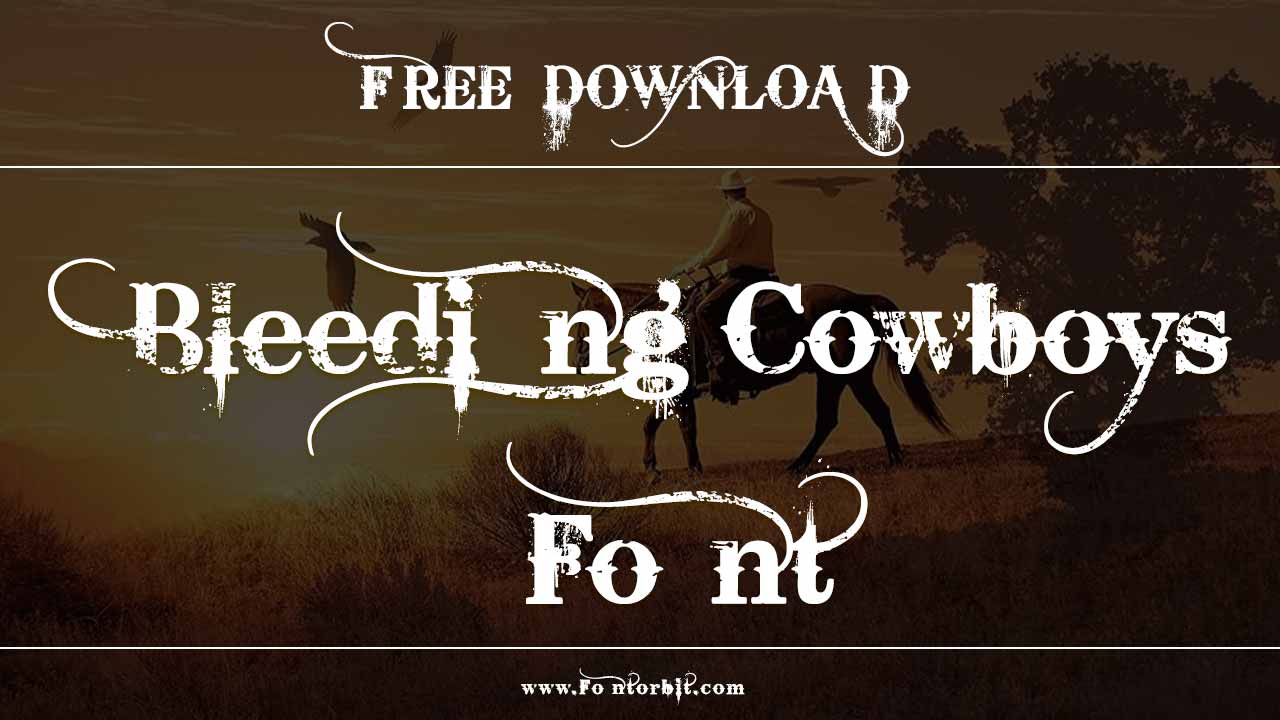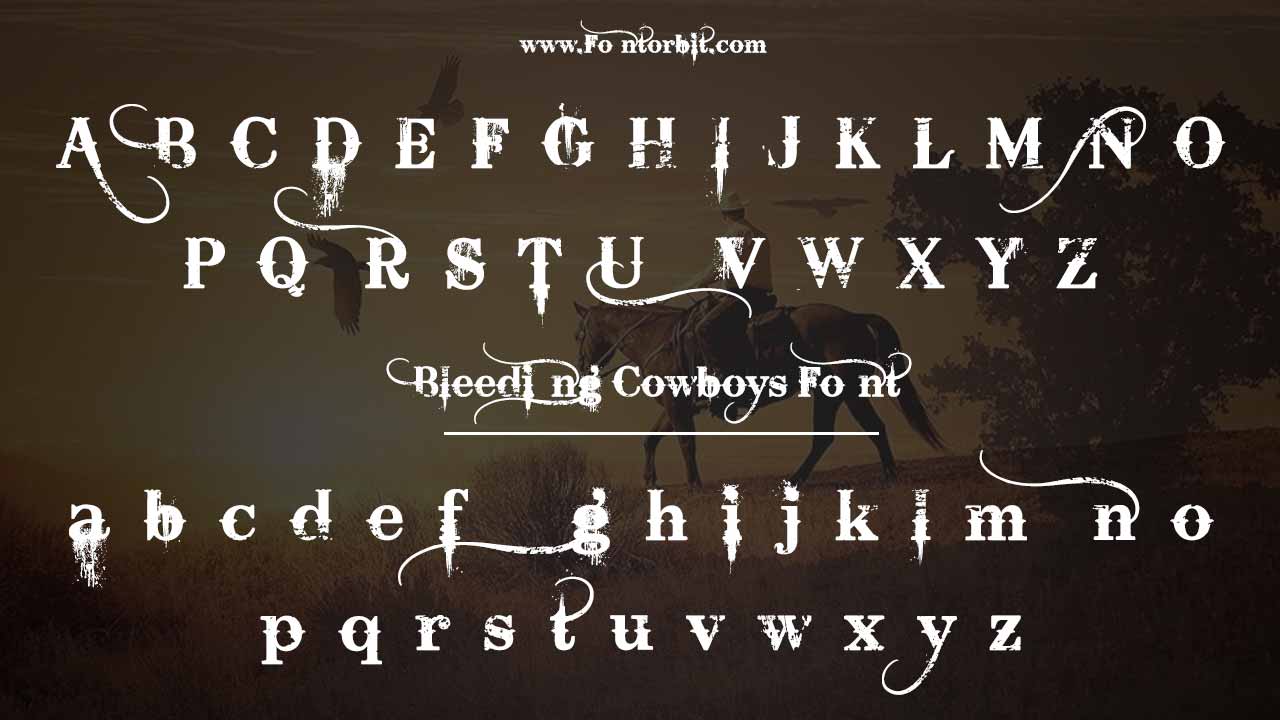
Bleeding Cowboys is a distressed, grunge-style display font known for its rugged, weathered appearance. The font was designed by Last Soundtrack and first published in 2007. It is highly decorative, with swirls and scratches, making it ideal for themes related to the Wild West, rock culture, or anything that needs a gritty, edgy look. The font is part of the Bleeding Cowboys family and is available in both regular and Pro versions.
Bleeding Cowboys Font Family Includes
The Bleeding Cowboys font family consists of several variations tailored to different design needs. The font’s signature style features rough textures and ornate details, which give it a unique personality for standout designs. Its distressed style is perfect for vintage and rebellious themes.
- Bleeding Cowboys Regular
- Bleeding Cowboys Pro
The Bleeding Cowboys font is perfect for occasions when you want to make a bold, artistic statement. It works well in branding for alternative or edgy industries, but it should be used sparingly due to its ornate nature. It’s best suited for:
- Album Covers
- Event Posters
- T-Shirt Designs
- Book Titles
Bleeding Cowboys is a bold, ornamental font with a unique and weathered aesthetic. It’s ideal for designers seeking to add a wild, vintage, or grunge feel to their projects. However, due to its highly decorative nature, it is best used for display purposes rather than body text. Keep this font in your collection for those times when you need something truly standout.
Yes, the Bleeding Cowboys font works well for edgy and rebellious brand aesthetics, such as rock bands, extreme sports, or alternative fashion brands. Its distressed, grunge-like appearance conveys a sense of boldness and individuality, making it perfect for logos, merchandise, and promotional materials. However, ensure that the font aligns with your brand’s personality and audience.
4.Which Font Category Does Bleeding Cowboys Belong To?
The Bleeding Cowboys font belongs to the distressed, grunge-style display font category. Its highly decorative, worn-out design features uneven strokes, rough edges, and ornate details. This makes it ideal for titles, headlines, and designs that aim to create a rugged, rebellious atmosphere, particularly in rock-themed or alternative projects.
5.Is Bleeding Cowboys Suitable For Body Text?
No, Bleeding Cowboys is not suitable for body text due to its highly decorative and intricate design. The font’s distressed style makes it difficult to read in smaller sizes. It’s best used for display purposes, such as titles, headlines, or logos, where its dramatic aesthetic can make a strong impact.